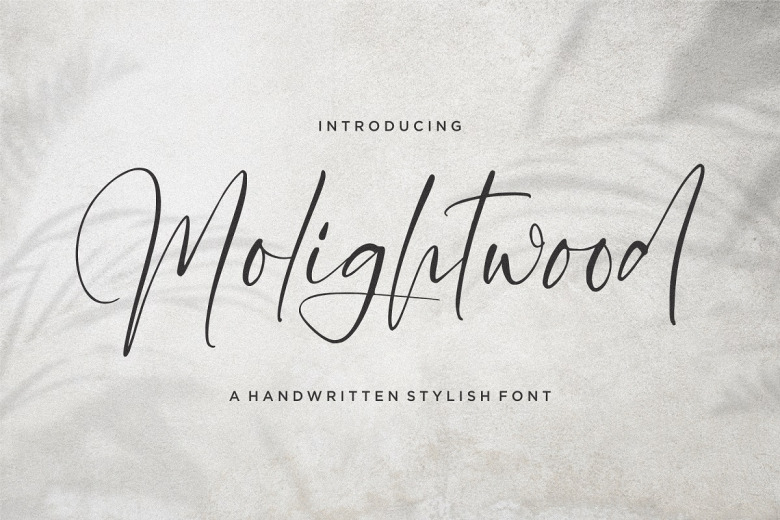
Molighwood Font
Molighwood is a stylish and incredibly elegant handwritten font. It is defined by smooth curves and is perfect for fashion branding or editorial designs. USE this font for your design and find out how it may be endless!
Molighwood Handwritten Font